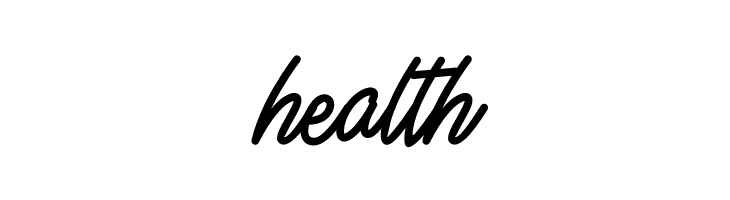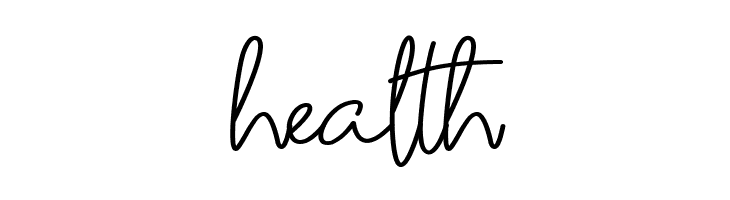
A casual, handwritten font with fluid strokes and a personal touch.
A playful, hand-drawn font with bold, rounded characters and a whimsical style.
An elegant, flowing script font with smooth, cursive strokes.
A cursive, handwritten-style font with smooth, connected letters.
A lively, expressive handwritten font with dynamic strokes and whimsical flair.
A fluid, cursive script font with a handwritten appearance.
A playful, handwritten font with bold, rounded characters and a casual style.
A graceful and flowing script font with elegant, connected strokes.
An elegant cursive script font with interconnected letters and ornate flourishes.